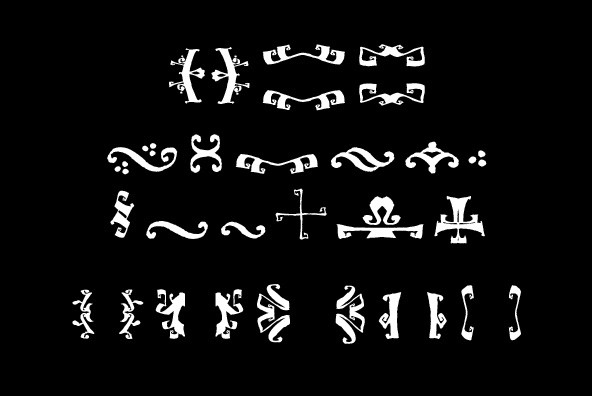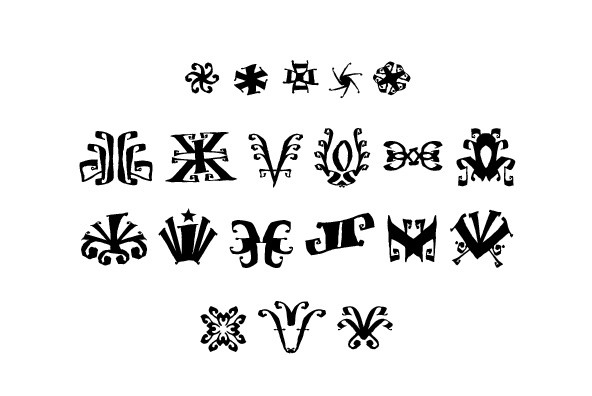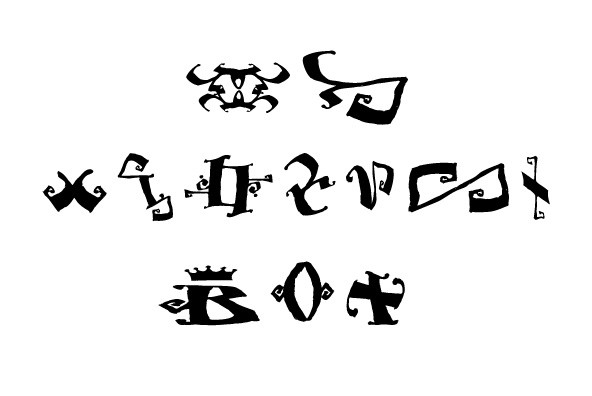
Biscuit Boodle Ornaments
Biscuit Boodle Ornaments offers a total of 72 vignettes, crests, fleurons, frames and many other useful ornaments. These ornaments were brush-drawn by Portland Studios? Illustrator Justin Gerard and have just a slight amount of natural texture. These energetic and lively ornaments can be resized and rotated easily without any loss of quality and can easily be converted to outlines and modified.
Combine them to form unique compositions or insert them into text to add some excitement to your designs.